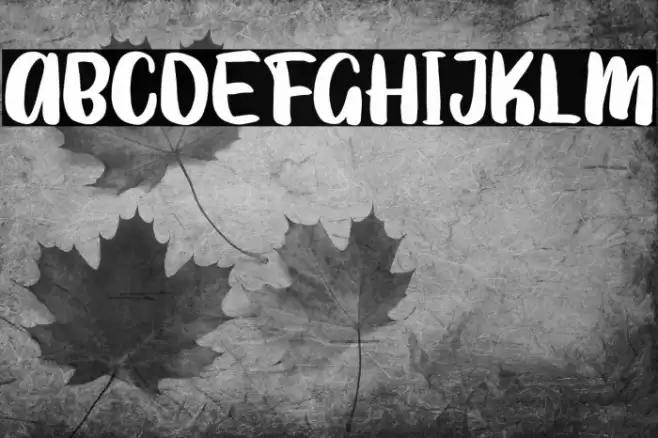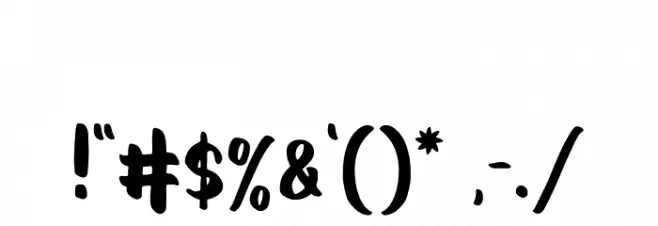
IceValley Font
IceValley Description
This font features a bold and playful script style with a handwritten appearance. The letters are rounded and have a smooth flow, creating a sense of movement and energy. The uppercase and lowercase letters are well-balanced, with a consistent stroke width that adds to its readability. The font includes a full set of numerals and a variety of special characters, making it versatile for different design needs. Its unique style is both casual and artistic, making it suitable for creative projects that require a personal touch.
A bold, playful script font with a handwritten, energetic style from Uncategorized fonts.